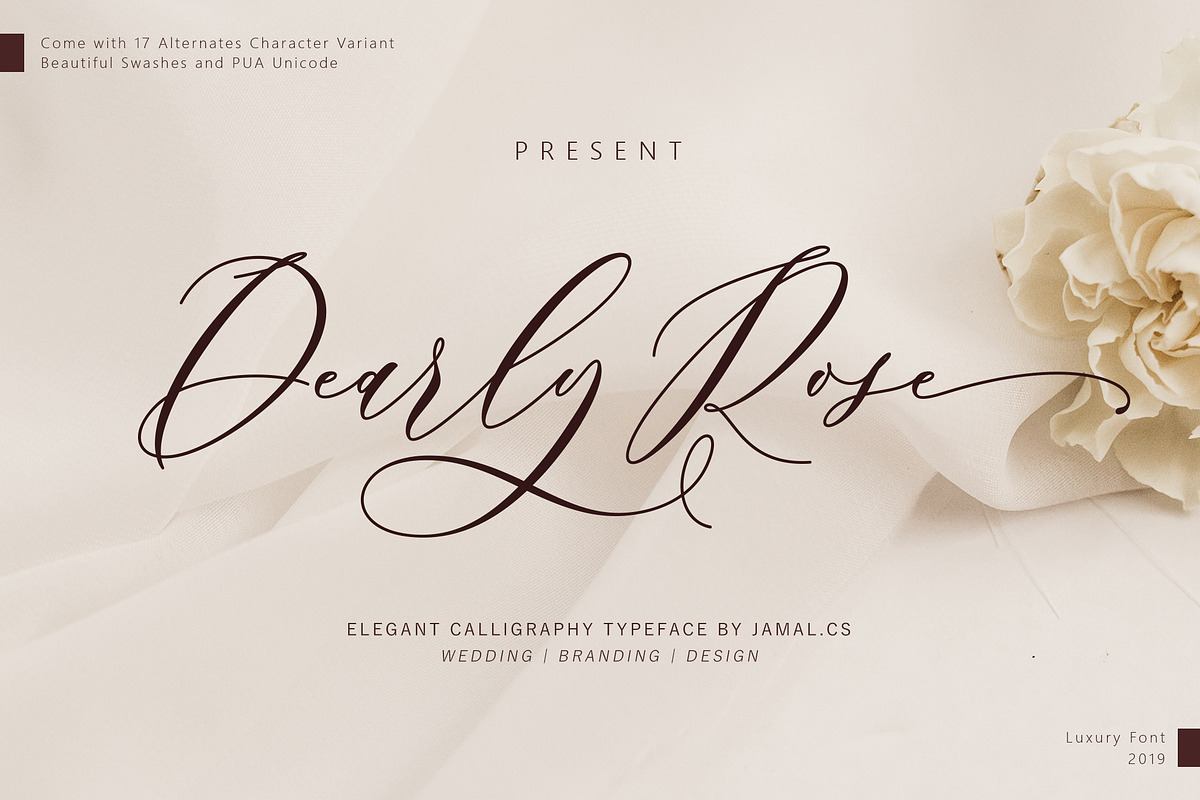
Dearly Rose Font Free Download is a romantic and graceful typeface designed to bring elegance and charm to your creative projects. With its delicate strokes and flowing curves, this font is ideal for wedding invitations, feminine branding, greeting cards, and social media graphics. Its handwritten feel adds a personal touch, making every design feel heartfelt and unique.
This font is crafted to maintain a perfect balance between beauty and readability, offering a soft, airy style that works well in both large headlines and subtle accents. Whether you're creating a logo for a boutique or a quote for a lifestyle blog, Dearly Rose adds a timeless elegance that enhances your message.